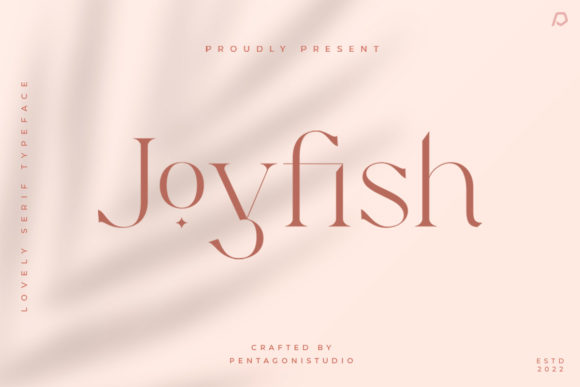
Prepare yourself to dive into the world of branding excellence with Joyfish Font, a captivating and sophisticated serif font family that will elevate your designs to new heights. Pentagonistudio, the artistic minds behind this masterpiece, have meticulously crafted each letterform with elegance and precision, resulting in a font that exudes both charm and authority.
Joyfish Font is not just a collection of characters; it's an invitation to embark on a journey of creativity and distinction. Its graceful serifs and flowing lines dance across the page, evoking a sense of timeless sophistication that will leave an indelible mark on your audience. Whether you're crafting a logo, designing a website, or creating marketing materials, Joyfish Font is your trusted companion, ready to elevate your projects with its undeniable allure.
But Joyfish Font is more than just a pretty face; it's a versatile performer that seamlessly adapts to a wide range of design challenges. Its PUA encoding grants you effortless access to a treasure trove of glyphs and swashes, empowering you to unleash your creativity and add a touch of personal flair to your designs. Whether you're seeking a classic and timeless look or a modern and edgy vibe, Joyfish Font effortlessly transforms to match your vision.
Imagine your logo, adorned with the refined strokes of Joyfish Font, commanding attention and leaving a lasting impression on potential customers. Picture your website, infused with the elegance of Joyfish Font, inviting visitors to explore your offerings with a sense of sophistication and trust. Envision your marketing materials, empowered by the captivating allure of Joyfish Font, cutting through the noise and delivering your message with undeniable impact.